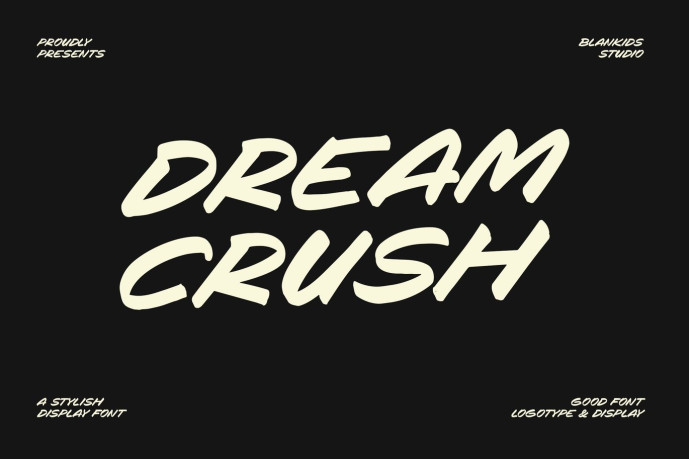
Dream Crush – Bold Urban Brush Display Font
Designer: Blankids Studio
Dream Crush is a bold and energetic display font inspired by the rhythm of city life, street culture, and modern creativity. Crafted with expressive hand-drawn brush strokes, this font delivers a raw yet polished look that instantly grabs attention. Its confident letterforms and dynamic flow make every word feel powerful, stylish, and full of personality.
Whether you’re designing for brands, music events, sports campaigns, or eye-catching social media content, Dream Crush brings an authentic urban attitude to your work. The natural brush texture and casual handwritten style create a perfect balance between bold expression and effortless readability.
Dream Crush is an excellent choice for projects that demand impact, originality, and a contemporary aesthetic.